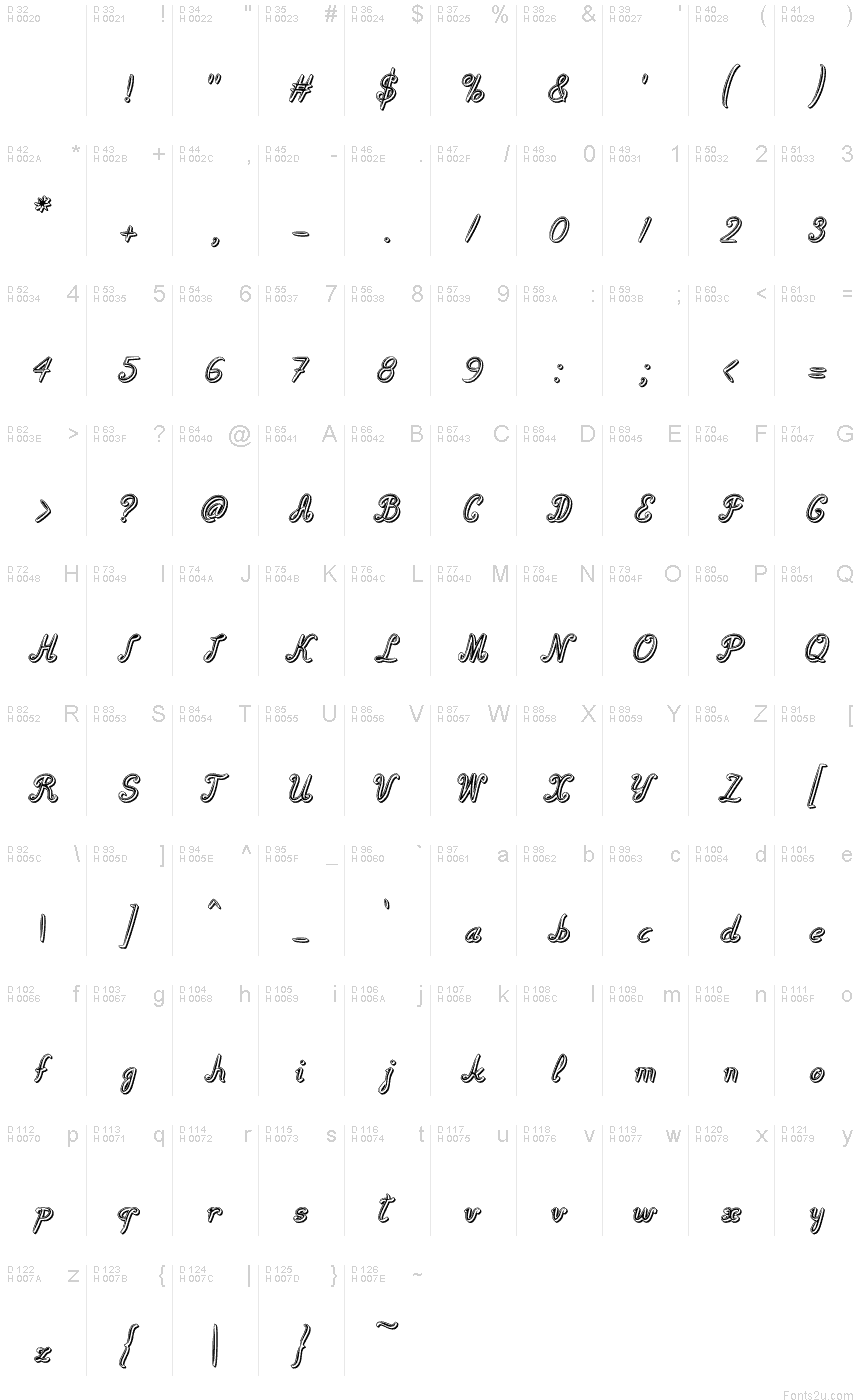
Spear Mint by D.L. of FontDen is a free outlined calligraphic script with the flourish of ornamental sign lettering. Its looping capitals and springy curves feel lively and carefully drawn.
The vintage showcard flavor makes it a natural fit for confectionery packaging and cafe branding. It can also lend theatrical charm to event posters and music merchandise. Across these uses, the doubled contours turn each letter into a decorative graphic rather than ordinary script.